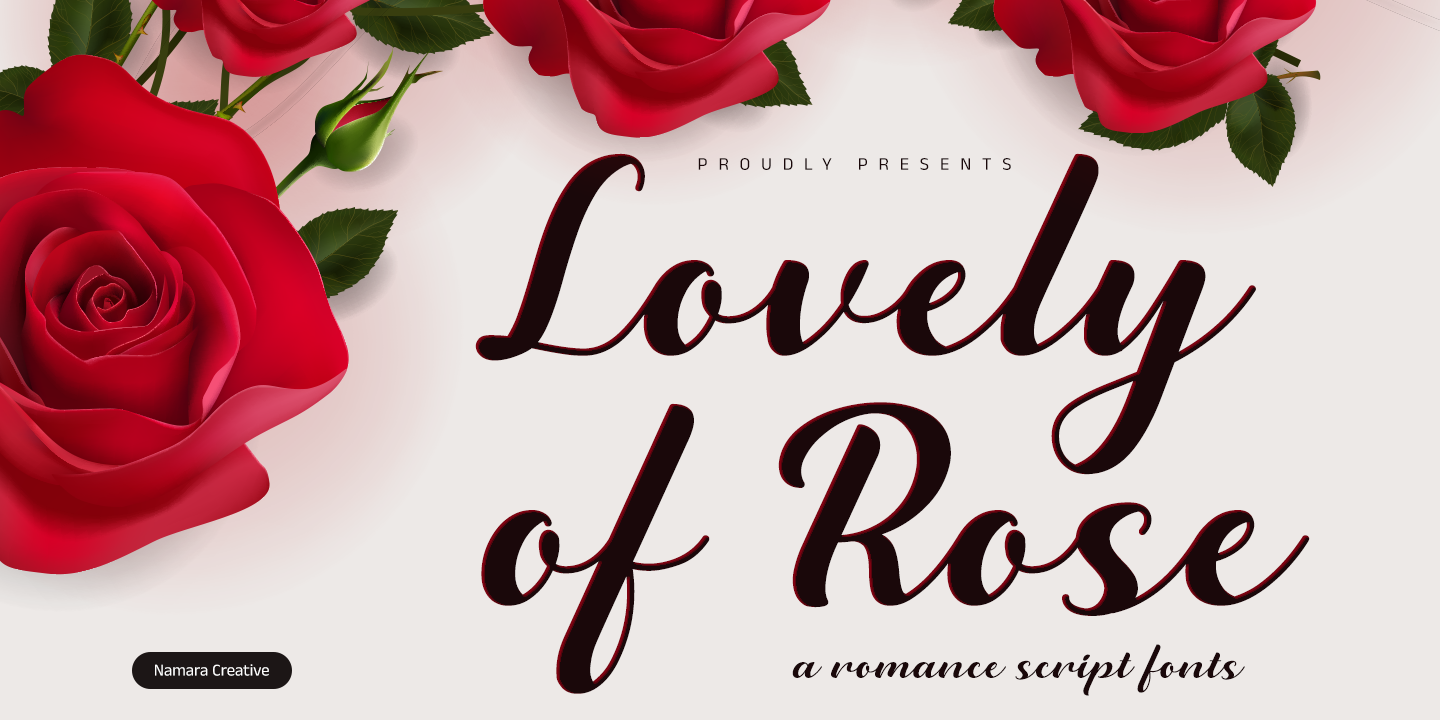
Lovely Rose Font Free Download – Add a Touch of Romance to Your Designs
Looking to infuse your projects with charm, softness, and timeless beauty? Lovely Rose Font Free Download is the perfect typeface to bring warmth and elegance to your creative work. This delicate script font features graceful curves and flowing strokes that resemble hand-drawn calligraphy, making it ideal for wedding invitations, greeting cards, branding, and feminine packaging.
Lovely Rose is all about emotion and personality. It adds a romantic flair without overwhelming your design, creating a perfect balance between sophistication and approachability. Whether you’re crafting a heartfelt message, designing a boutique logo, or decorating social media posts, this font makes your text bloom beautifully.
Let your creativity flourish with Lovely Rose, a font that speaks the language of love and elegance in every letter.